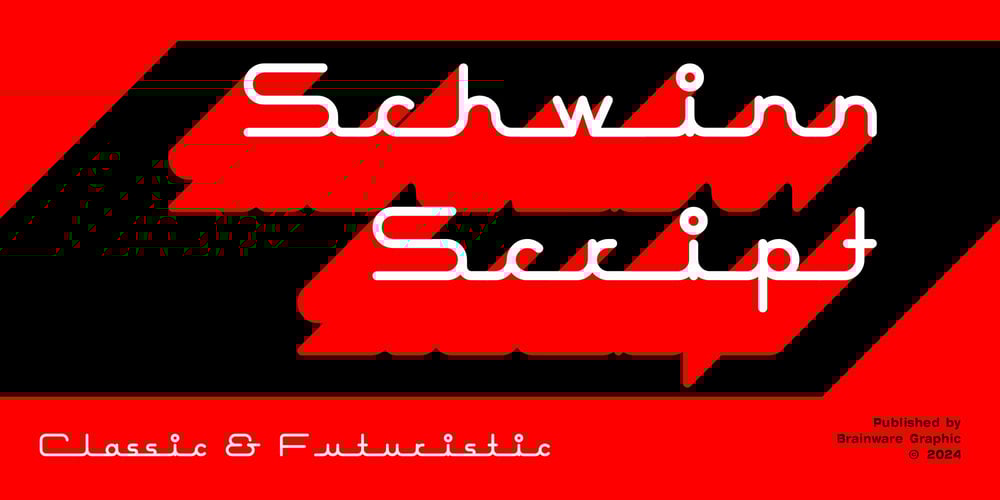
Schwinn Script Font Family was designed by Muhammad Jauhar Azmi and published by Brainware Graphic. Schwinn Script contains 1 styles and family package options. Schwinn Script is a modern classic futuristic retro vintage script font inspired by technological products in their era.